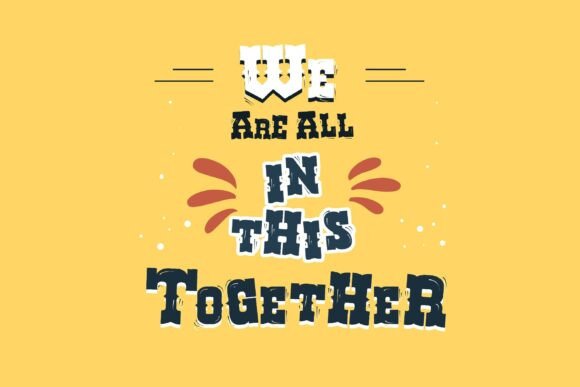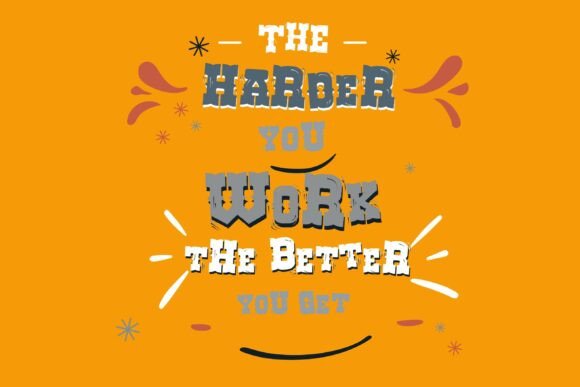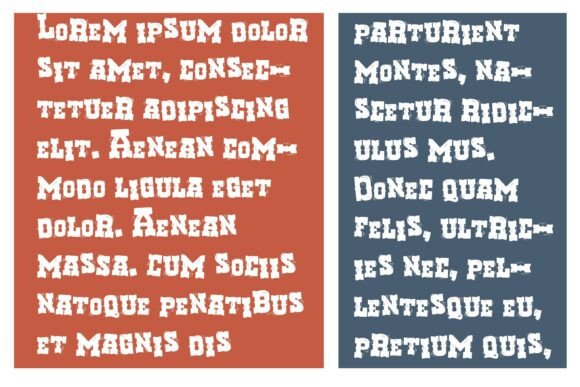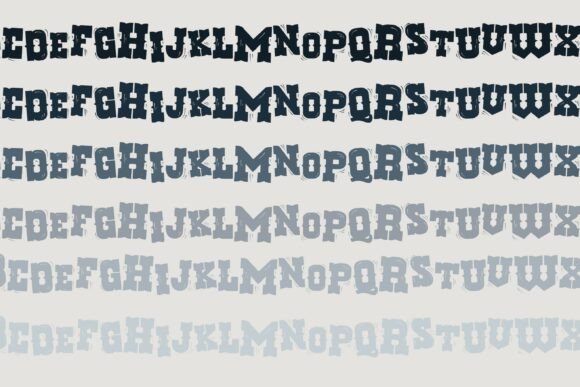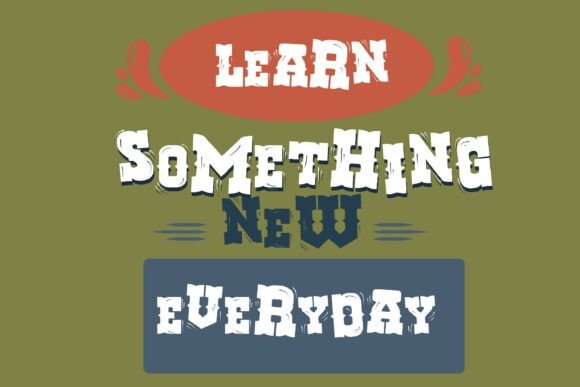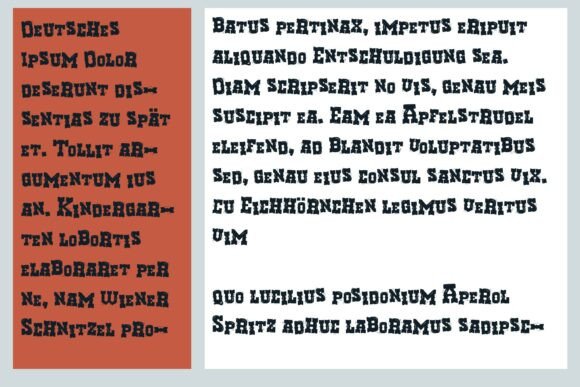
Introduction to Hen Huevos Font
Crack open a new creative vision with Hen Huevos, a spirited display typeface that captures a “playful-and-pre-Columbian” soul.
This font features bold, blocky letterforms uniquely characterized by rhythmic, hand-etched textures and a sturdy structural weight that bridges the gap between ancient stone glyphs and modern celebratory branding With its energetic personality and tall proportions, Hen Huevos is the premier choice for independent artisanal kitchen identities, boutique taco shop logos, cultural museum materials, and high-impact “ancient-and-animated” social media headers.